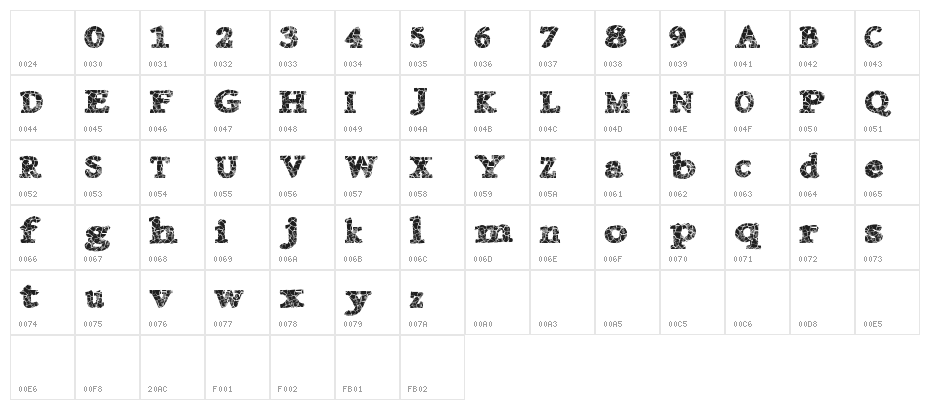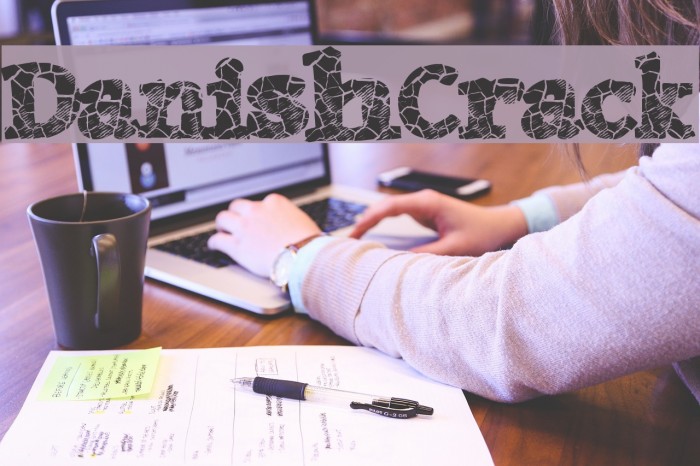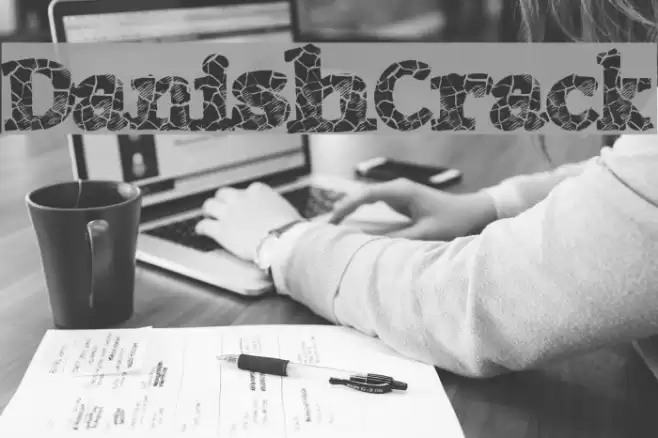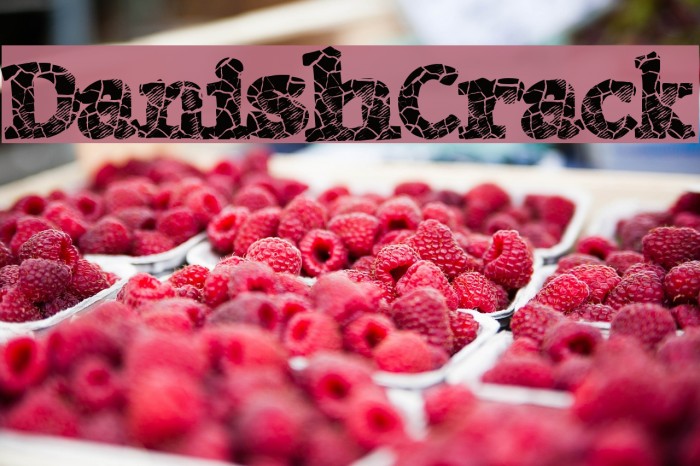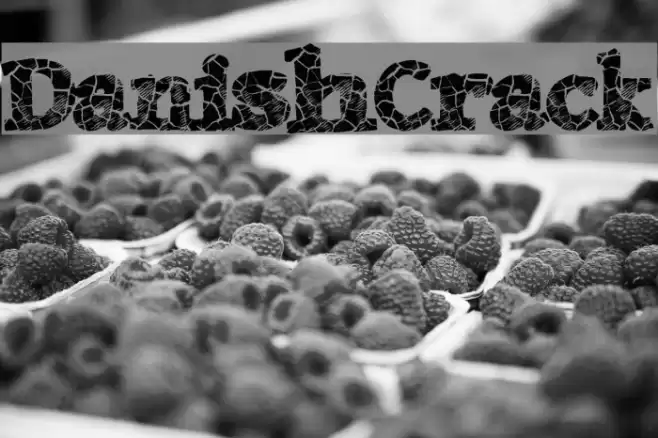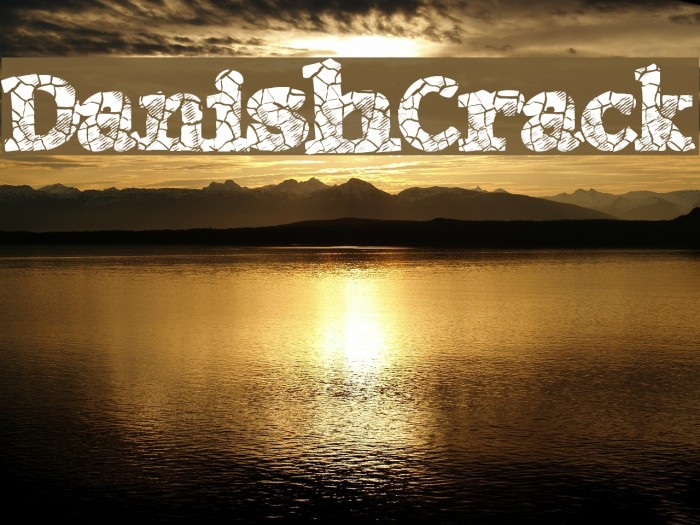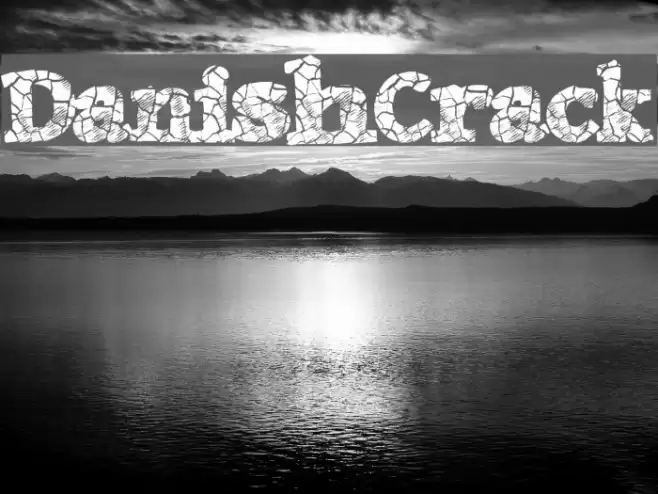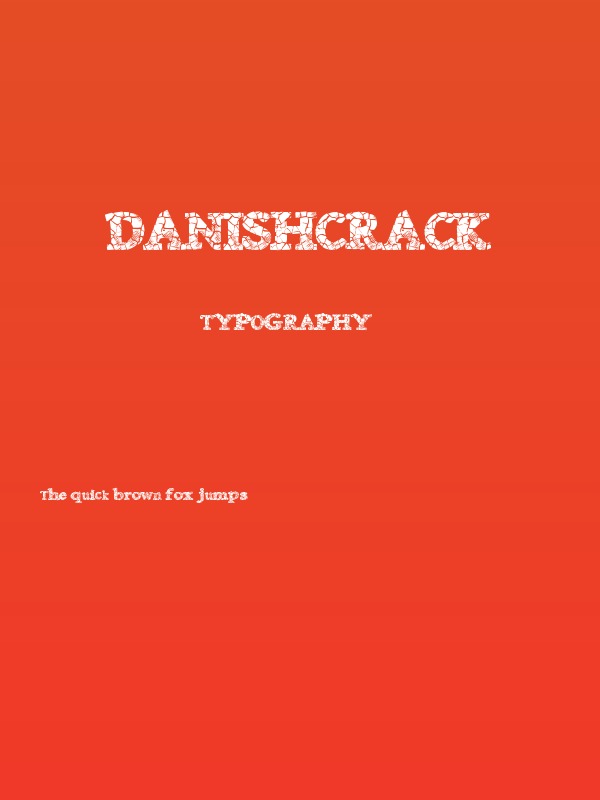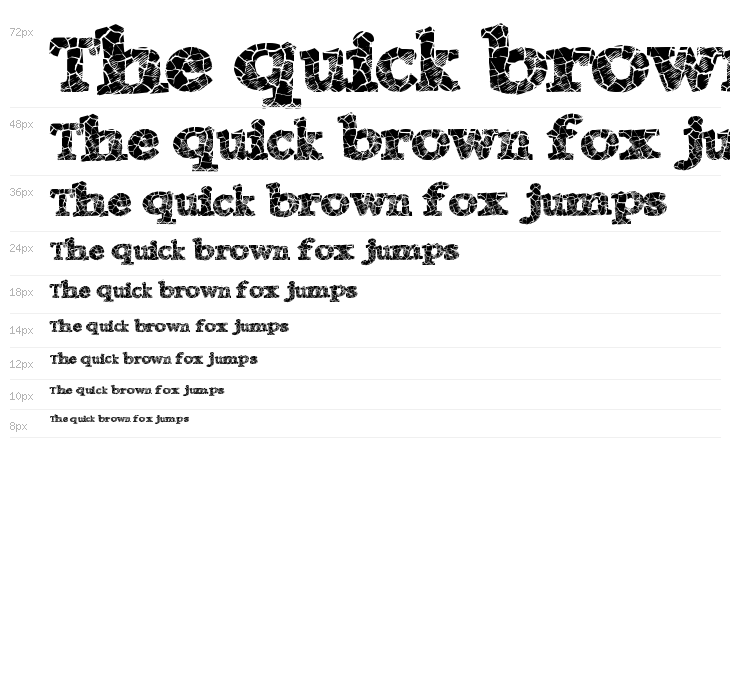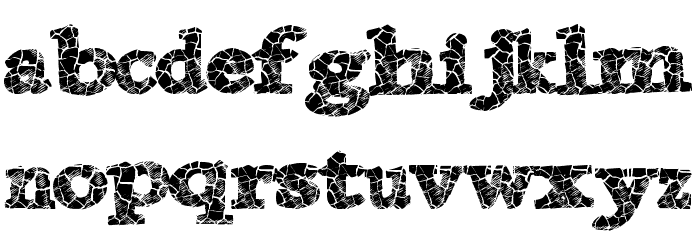
DanishCrack Font
DanishCrack Description
This font features a unique cracked texture that gives it a rugged and distressed appearance. The letters are bold and have a substantial presence, making them stand out in any design. The texture resembles shattered glass or cracked earth, adding a dynamic and edgy feel to the characters. The uppercase and lowercase letters maintain a consistent style, with the same textured effect applied throughout. Numbers and special characters are also included, each with the same distinctive cracked pattern. This font is ideal for projects that require a bold statement or a gritty, urban aesthetic.
| Proposed Projects | Ideal for posters, album covers, urban-themed designs, and any project needing a bold, edgy look. |